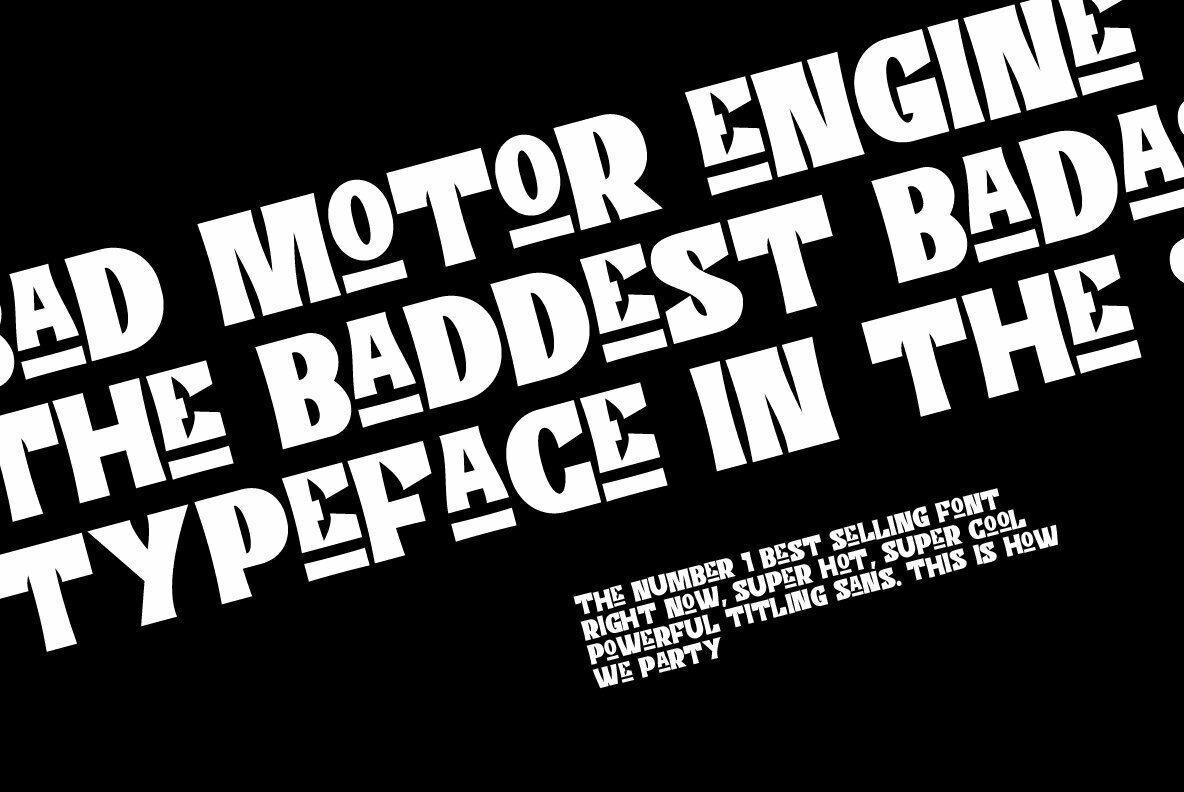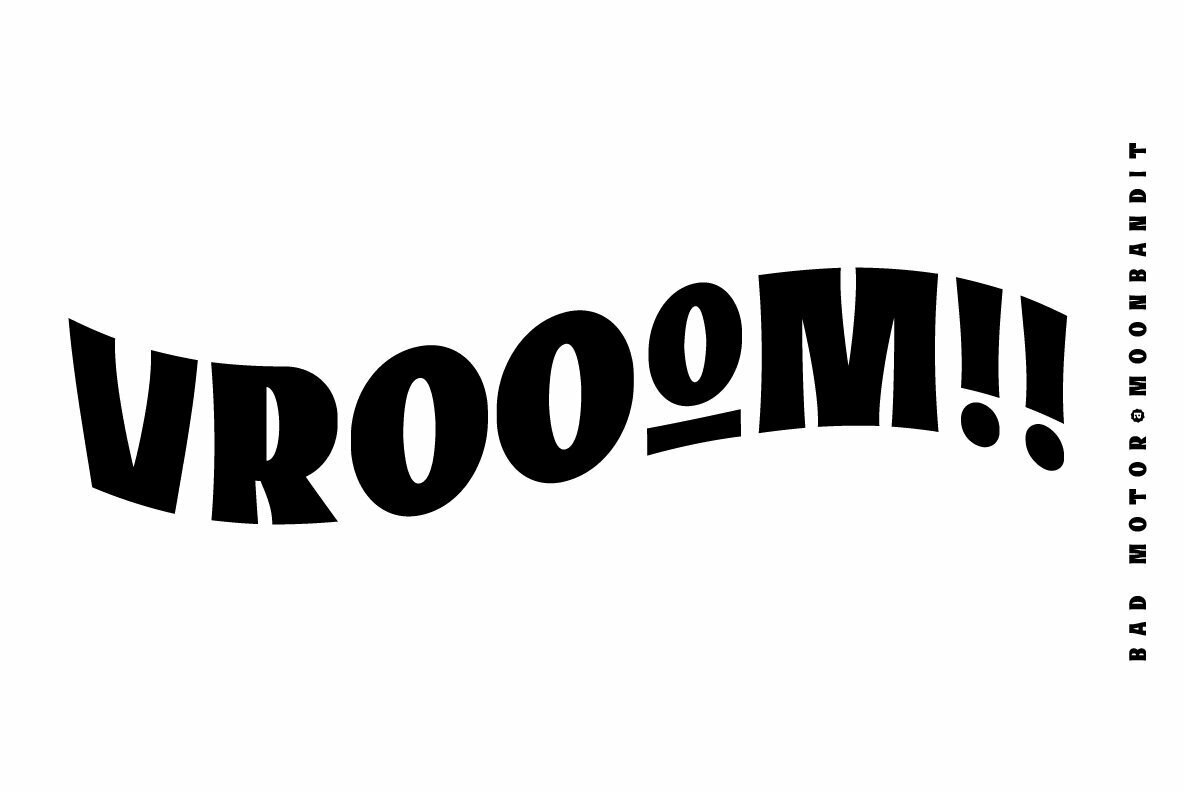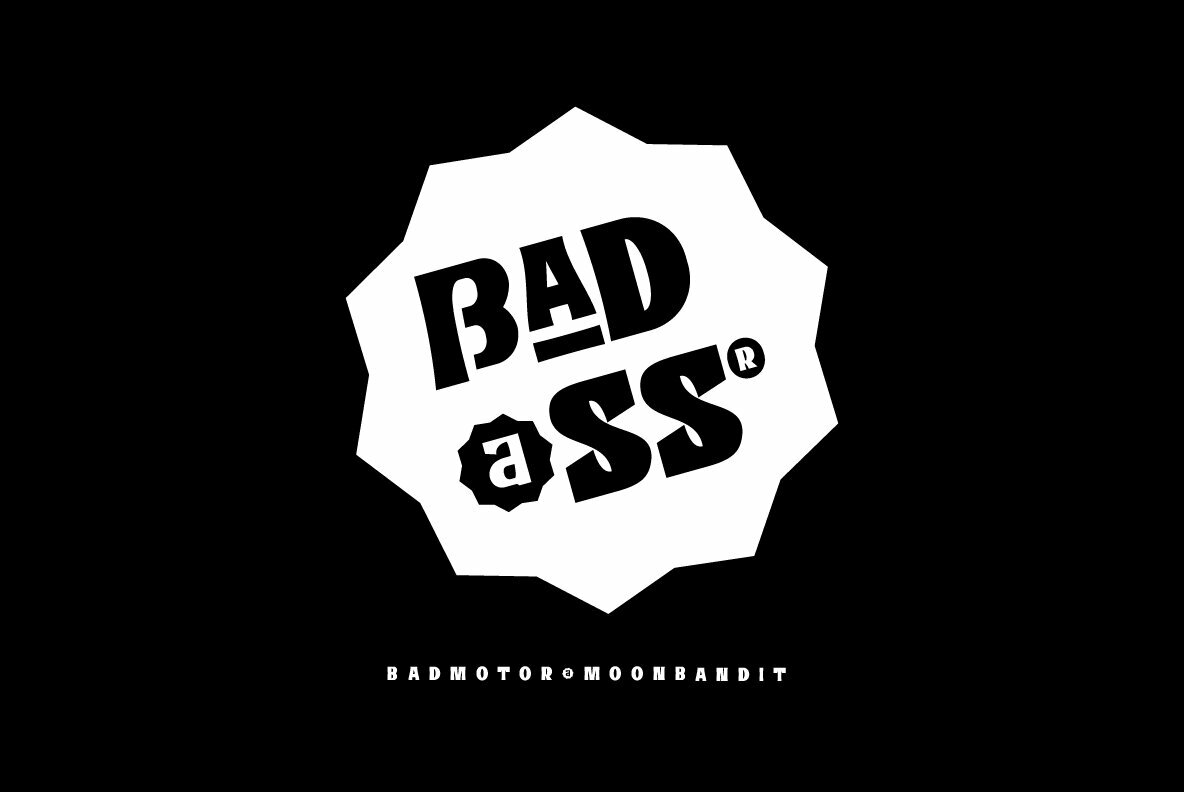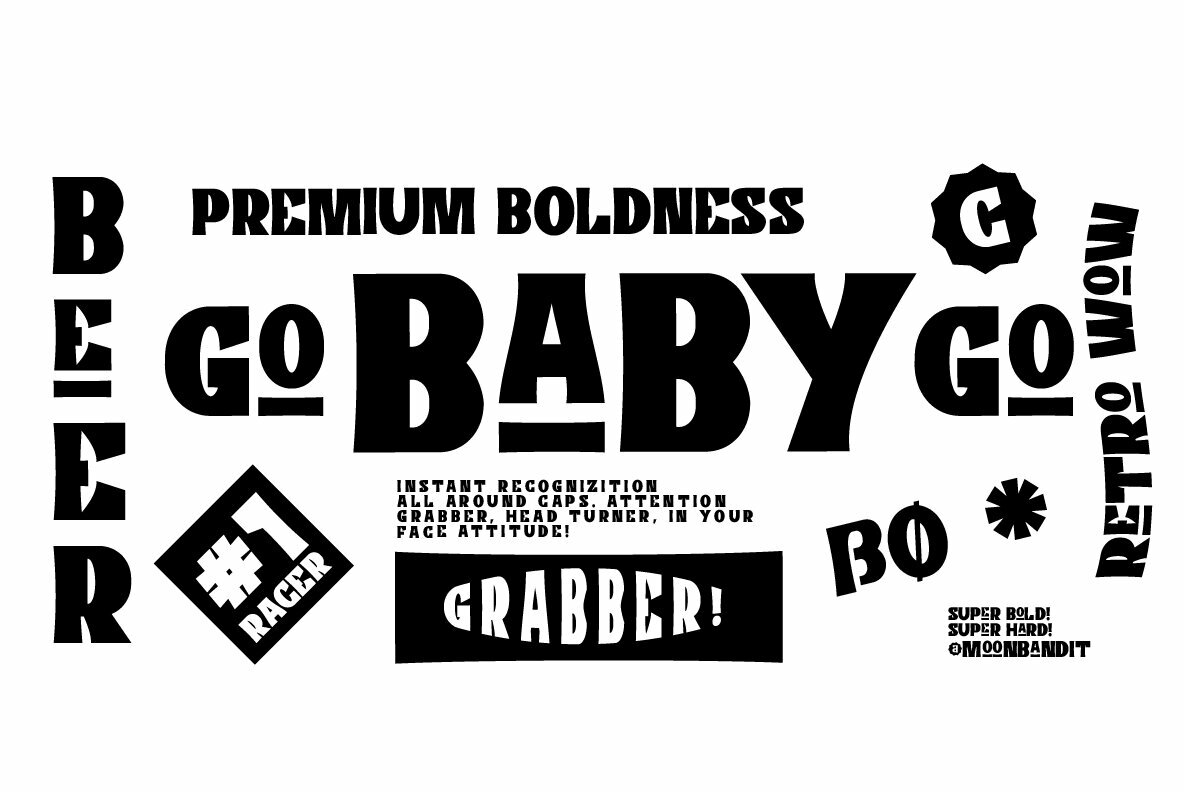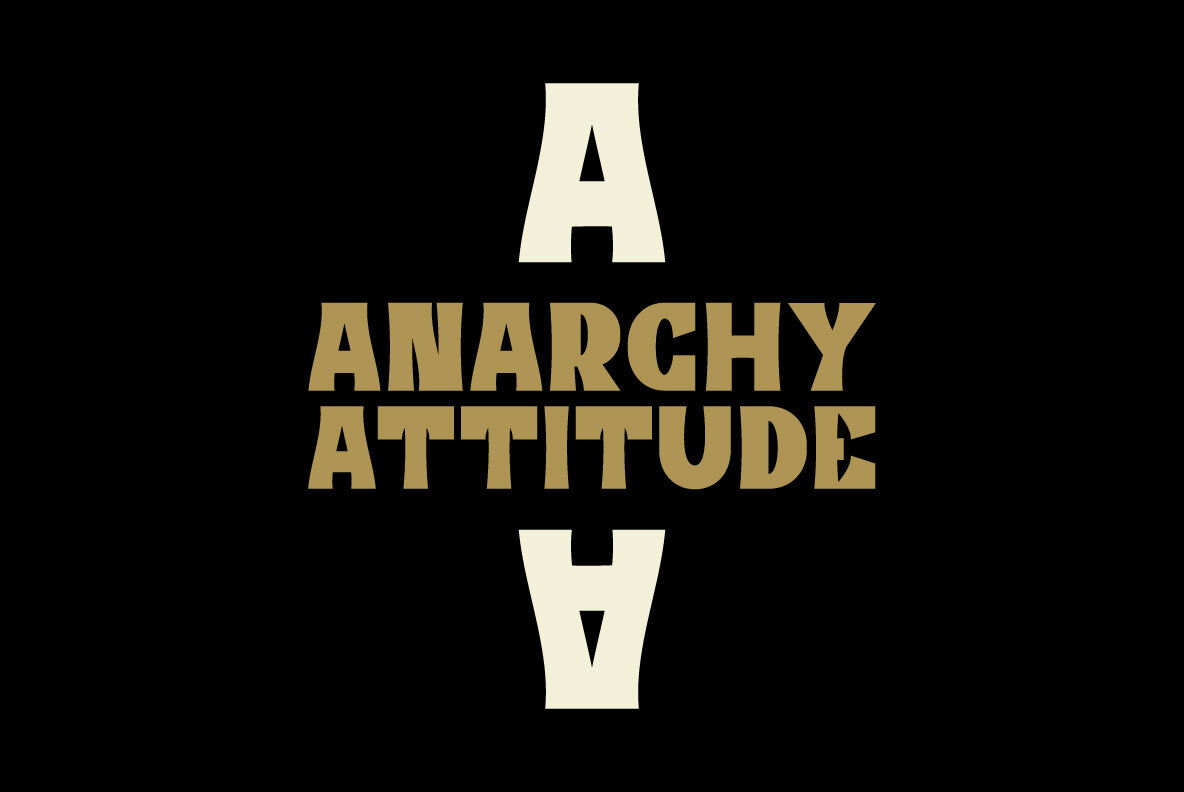
MBF Bad Motor
Embrace a bold retro aesthetic with Bad Motor, a vintage-inspired typeface reminiscent of the iconic Route 66. Crafted for designers seeking a touch of nostalgia, this font injects an audacious flair into any project.Bad Motor: Bold Vintage Inspired Typeface